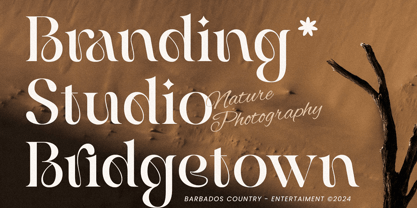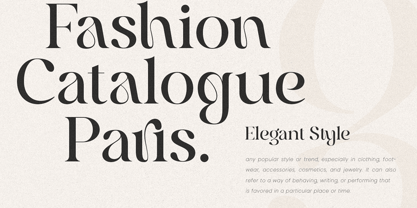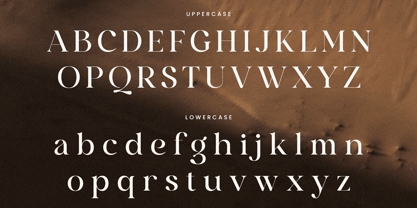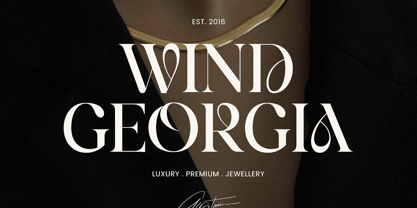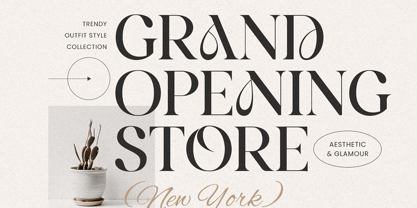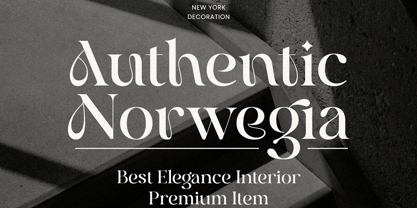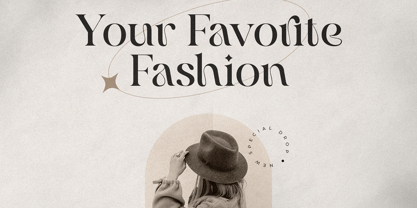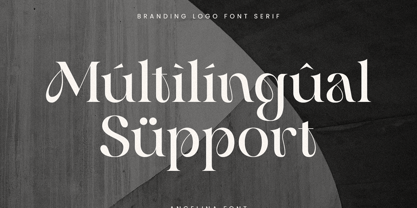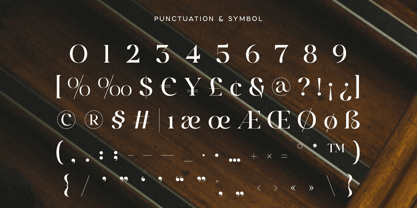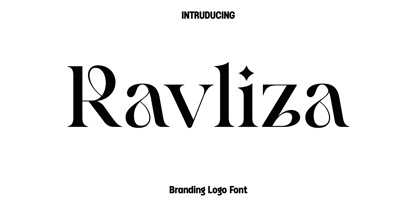
Ravliza
by Only Fonts
The Ravliza Font Family was designed by Olivia Love and published by Only Fonts. Ravliza contains 1 styles. More about this family
Ravliza – Luxury Branding Logo Font Ravliza is a refined luxury branding logo font crafted for creators who value timeless elegance, graceful details, and sophisticated typography. Drawing inspiration from premium fashion houses, luxury boutiques, and modern editorial design, Ravliza showcases elegant letterforms adorned with beautifully crafted ligatures and stylish alternative characters, establishing a distinctive and memorable visual identity. Each character is meticulously designed to convey exclusivity, confidence, and exceptional craftsmanship. Ideal for luxury logos, fashion brands, beauty products, jewelry collections, perfume packaging, cosmetic labels, wedding stationery, boutique businesses, hotel branding, editorial layouts, premium websites, business cards, and high-end marketing materials, Ravliza ensures a polished and elegant appearance across both print and digital media. Its balanced proportions and flowing curves lend sophistication to every design while maintaining excellent readability. Designed with versatility in mind, Ravliza features elegant ligatures and alternative characters that empower designers with the creative freedom to craft custom logos, unique wordmarks, and premium brand identities. Whether launching a luxury brand, designing refined packaging, or creating stylish promotional materials, Ravliza offers the flexibility to achieve professional and unforgettable results. With its harmonious blend of modern refinement and timeless beauty, Ravliza elevates ordinary typography into a luxurious branding experience. It is an essential addition to any designer's font collection for creating elegant visual identities that leave a lasting impression. Ravliza Font Features: • Elegant ligature and alternative characters • Luxury branding logo style • Uppercase and lowercase letters • Numerals, punctuation, and symbols • Multilingual support • Perfect for luxury branding, fashion, beauty, packaging, editorials, websites, business cards, and premium logos • Suitable for both print and digital projects
Designers: Olivia Love
Foundry: Only Fonts